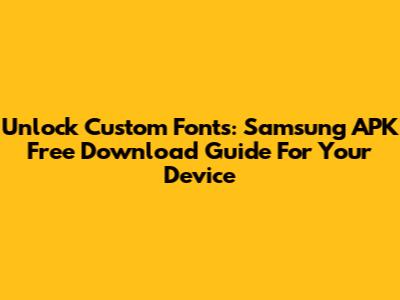
- Enable 'Unknown Sources' with caution: Your Samsung device, by default, prevents installations from unknown sources for security reasons. You'll need to temporarily enable this setting. Go to
Settings > Biometrics and security > Install unknown apps. From there, you'll need to grant permission to the app you'll use to open the APK (like your file manager or browser). Crucially, remember to disable this permission immediately after installing your font APK to keep your device secure. Leaving it on can expose your phone to malicious apps installing themselves without your knowledge. - Backup Your Device: It's always a good practice to back up your important data before making significant system changes, just in case something goes wrong. While installing a font APK is generally safe, having a backup provides peace of mind.
- Use a Reliable Antivirus: Consider having a reputable mobile antivirus app installed on your Samsung phone. It can offer an extra layer of protection by scanning downloaded files for potential threats.
- Read Reviews and Do Your Research: Before downloading any old version APK, especially for Samsung fonts, spend a few minutes researching the source and reading user comments. If a site or file looks suspicious, walk away. There are plenty of legitimate sources for free download APKs out there.
- Well-known websites: These sites typically verify APKs for authenticity and safety.
- User comments/ratings: A good indicator of reliability. If many users report issues or malware, steer clear.
- Clear version numbers: Ensure you're indeed getting an old version if that's your goal, and check its compatibility with your Android version or Samsung One UI version.
- Locate the APK: Open your phone's file manager app (e.g., "My Files" on Samsung). Navigate to the
Downloadsfolder or wherever you saved the APK file. - Tap to Install: Tap on the downloaded APK file.
- Grant Permission: If you haven't already, your phone will likely prompt you to enable "Install unknown apps" for your file manager or browser. Follow the on-screen instructions to grant this temporary permission.
- Install the Font App: Once permissions are granted, you'll see an installation screen. Tap "Install." This will install the font package as if it were a regular app. Don't worry, these usually don't appear as standalone apps in your app drawer, but rather integrate with your system's font settings.
- Disable Unknown Sources: Immediately after installation is complete, go back to
Settings > Biometrics and security > Install unknown appsand revoke the permission you just granted to your file manager or browser. This is crucial for your phone's security! - Apply the Font: Now, go to
Settings > Display > Font size and style > Font style. You should see your newly installed font listed among the available options. Select it, and voilà! Your Samsung font will change instantly.
Hey guys, ever looked at your Samsung phone and thought, "Man, I wish I could change this font to something a little more me?" You're not alone! The desire to personalize our devices is huge, and for many, that starts with the very text we see every day. While Samsung offers some built-in options, often people go looking for more unique or specific typefaces, especially those classic ones that might not be readily available anymore. This is where the world of Samsung fonts free download APK old version comes into play. It's a journey into customizing your device, giving it a fresh, personal touch without necessarily spending a dime. We're talking about taking control of your phone's aesthetic, making it truly yours. But it's also about understanding how to do it safely and effectively, especially when dealing with older versions of apps and external downloads. So, let's dive deep into everything you need to know to get those awesome custom fonts onto your Samsung device, ensuring a smooth and enjoyable experience for all you tech enthusiasts out there.
This guide is specifically tailored for those of you eager to explore beyond the standard offerings. We'll cover why Samsung fonts are such a popular customization point, how to find and install free download APKs, particularly focusing on old versions that might be hard to track down otherwise. We'll also equip you with crucial safety tips, because while customization is fun, security should always be your top priority. By the end of this article, you'll be well-prepared to transform your Samsung phone's typography, giving it that unique flair you've been craving. Get ready to unleash your phone's full customization potential, making every text, menu, and notification truly reflective of your personal style. It's time to step up your phone's game, making it stand out from the crowd with just the right font. The world of Samsung fonts free download APK old version is vast, and we're here to navigate it together, ensuring you find exactly what you're looking for.
The Allure of Custom Fonts on Samsung Devices
When it comes to personalizing our smartphones, Samsung fonts are arguably one of the most impactful elements we can tweak. Think about it: every single interaction with your device involves text. From scrolling through your social media feeds to reading emails or even just checking the time, fonts are everywhere. So, naturally, having a font that speaks to you, one that's easy on the eyes and aligns with your personal aesthetic, can dramatically enhance your user experience. Many Samsung users quickly find the default font options a bit, well, default. They're functional, sure, but they often lack that unique character or flair that truly makes a device feel like yours. This is where the allure of custom fonts truly shines, offering an unparalleled level of personalization that's both visible and constantly interacting with you. Imagine swapping out a plain, standard font for something elegant, quirky, bold, or minimalist – the possibilities are truly endless, transforming the entire visual feel of your phone.
Beyond just aesthetics, a well-chosen font can also improve readability and even mood. Some people prefer a clean, sans-serif font for professional use, while others might gravitate towards a more playful or artistic script for their personal device. The sheer variety available, especially through free download APKs, means you're not stuck with a handful of generic choices. This ability to choose and change your font at will is a powerful tool for self-expression. It allows you to tailor your device to your evolving tastes or even to match your current vibe. Samsung, to its credit, does offer a selection of fonts through the Galaxy Store, some free, some paid. However, for those seeking something truly specific, or perhaps a classic font that's no longer officially supported, or simply looking for free download options beyond the store, turning to APK files becomes an exciting prospect. It opens up a whole new universe of typographic possibilities that might otherwise be inaccessible. This is especially true for those who appreciate the nostalgia or unique characteristics of old version fonts that were popular in earlier iterations of Android or Samsung's UI. The community around custom fonts is vibrant, constantly creating and sharing, making it a treasure trove for anyone looking to personalize their device. So, if you're feeling limited by your current font choices, know that a world of amazing Samsung fonts is just waiting to be discovered, often available as a free download APK, ready to give your phone that much-needed personality boost.
Navigating the World of Samsung Font APKs
Alright, guys, let's talk about APK files and why they're so central to finding those coveted Samsung fonts free download old version options. An APK, for those who might not know, stands for Android Package Kit. Essentially, it's the package file format used by the Android operating system for the distribution and installation of mobile apps. Think of it like a .exe file on Windows or a .dmg on macOS – it's the installer for an app. When you download an app from the Google Play Store, you're actually downloading and installing an APK, but the process is handled automatically in the background. However, when we talk about free download APKs for custom fonts, we're often looking at files downloaded from outside official app stores, which gives us access to a much wider array of options, including those beloved old versions of fonts or font managers that might have been deprecated.